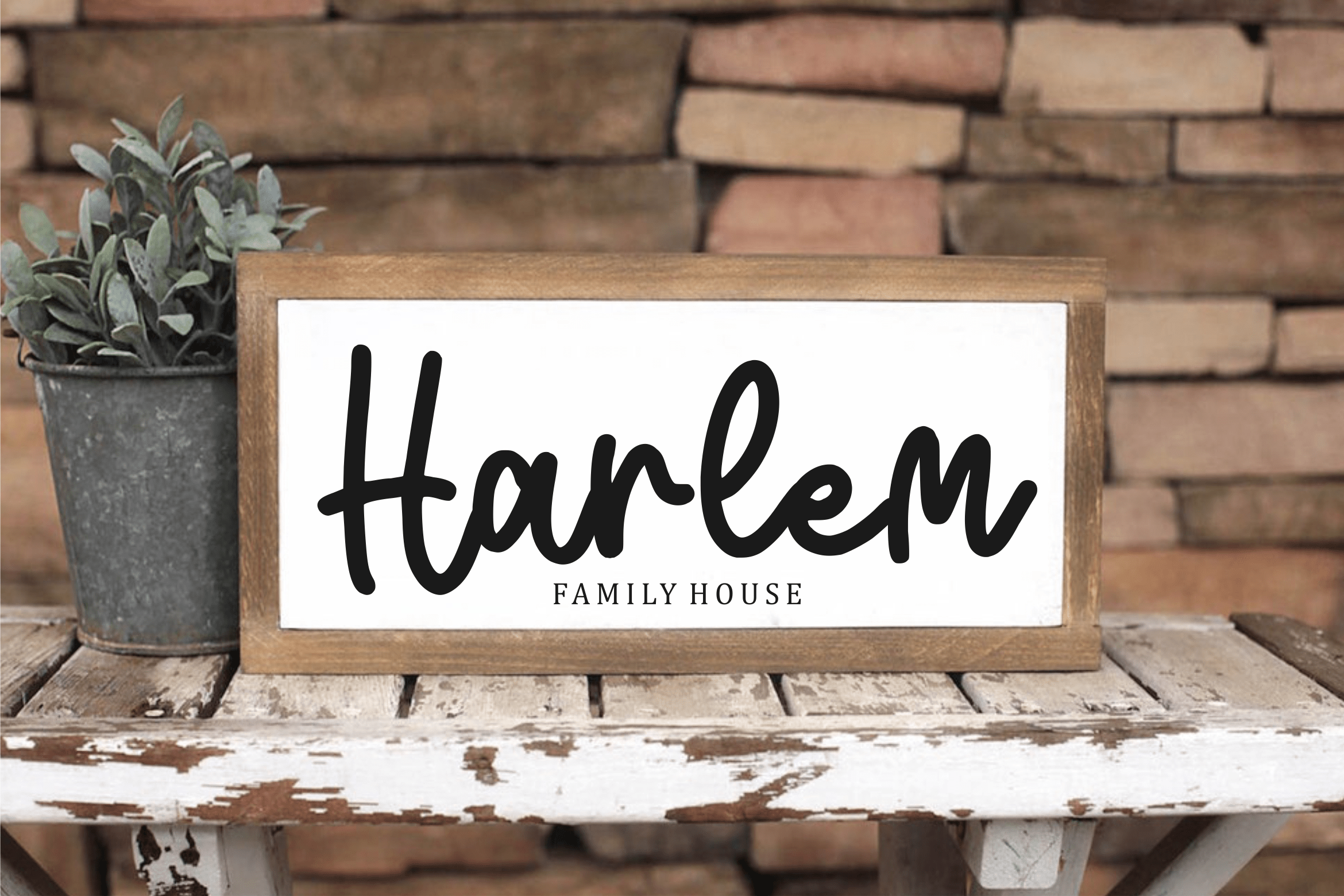
Blisymind Font
Blisymind Handwritten Font
It’s a sweet and cursive handwritten font. This gentle font will look gorgeous on a variety of design ideas. It will add a joyful and romantic touch to each of your projects!